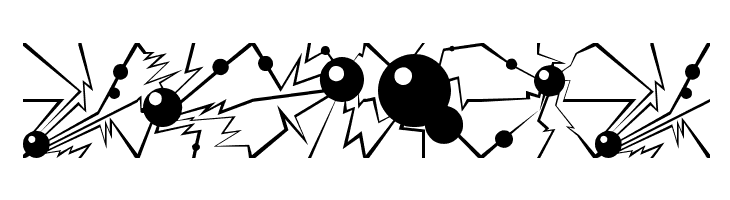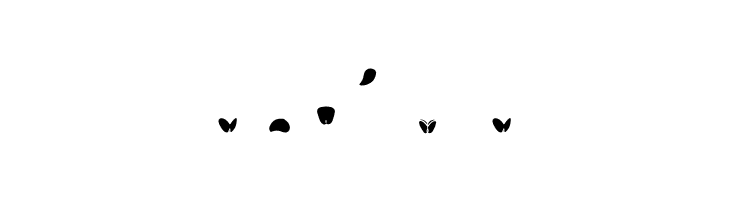
( Marcos Augusto Farhat - www.farhatguitar.com )
Not a valid font; contains musical and abstract symbols.
( Ryan Tempro )
A fragmented, modern font with disjointed character segments for a unique visual effect.
( Vincenzo Silvestroni - vinsil.net/ )
A surreal, erotic-themed decorative symbol font with bold, abstract illustrations.
( Zoe Kierce )
A geometric, hollow font with a futuristic and abstract design.
( cody - Codin Repsch )
Abstract, electric-themed decorative font with energetic shapes.
( hechicero - www.ff-omeganebula.com )
A decorative, abstract font with a futuristic, alien-like appearance.
An artistic, abstract font inspired by Polish poster art with bold, irregular shapes.
( quadratype - semifont.blogspot.com/ )
Abstract, illustrative design with cartoon elements, not a standard font.
( Catrina )
An abstract, decorative font with geometric and artistic elements.
( Daniel Plant - www.fontmonster.org )
A bold, italicized, and highly decorative font with an abstract, cut-out appearance.